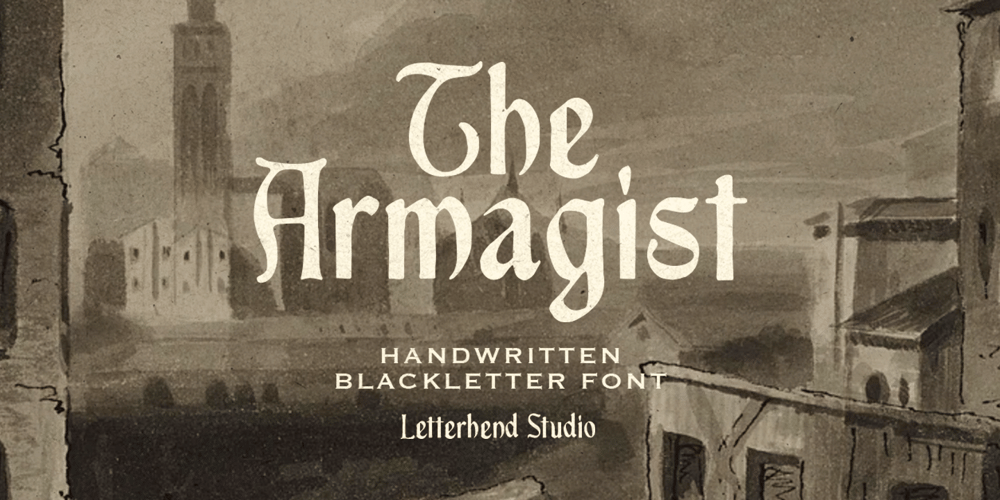
Armagist
Armagist font
Armagist Font Family was designed by Hendry Juanda and published by Letterhend. Armagist contains 1 styles and family package options. Immerse your designs in medieval elegance with The Armagist, a handcrafted blackletter font that brings the spirit of ancient manuscripts to life. Its bold, textured strokes and subtle imperfections give a sense of authenticity, perfect for creating logos, posters, book covers, or branding with a historical or fantasy theme. This font pairs beautifully with vintage aesthetics, making it a versatile choice for designs that need a touch of old-world charm.Features : Uppercase & lowercase Numbers and standard punctuation Multilingual support PUA encoded